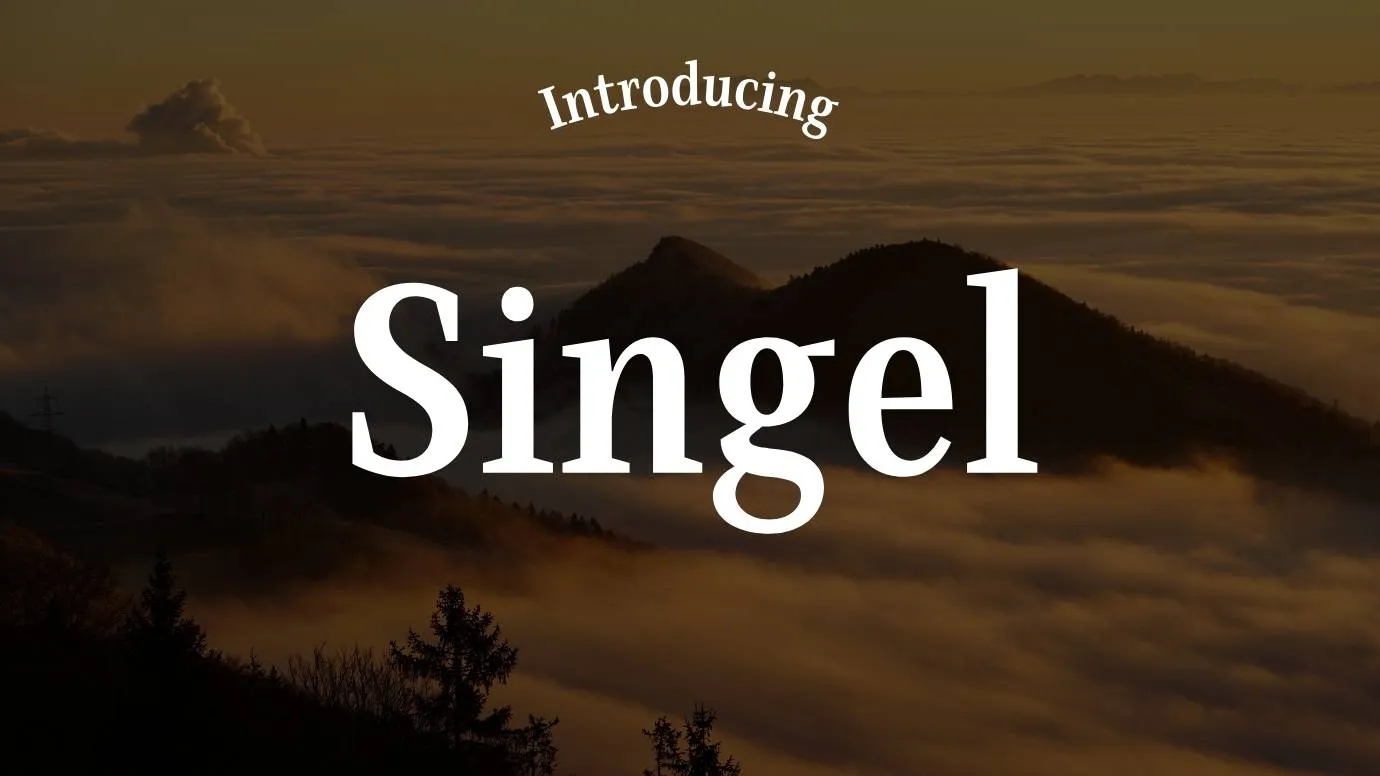
Singel Font Family comes in the slab serif category. Jacklina Jekova and Nikolay Petroussenko are two intelligent manufacturers who create this classic typography.
This modern texture was published by FontFabric. This texture consists of 10 weights that are perfect for a number of unique designs. This amazing font has a magnificent appearance that is so famous in the design market.
Singel Font
NameSingel Font
TypeSlab Serif
DesignerJacklina Jekova, Nikolay Petroussenko
Foundry FontFabric